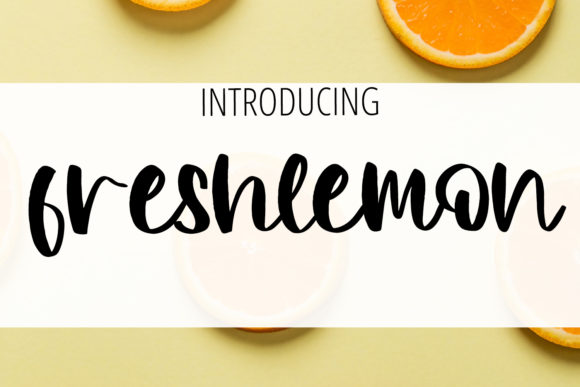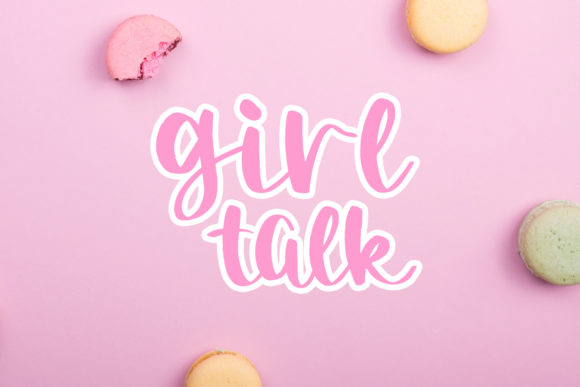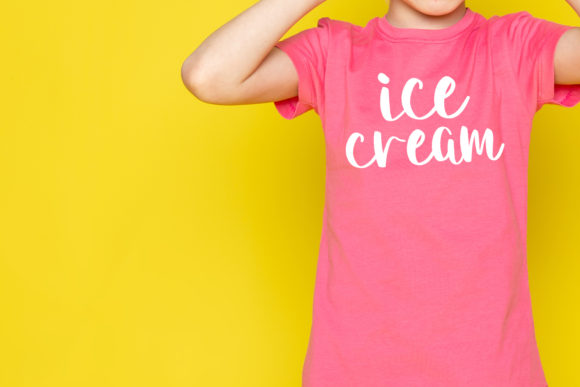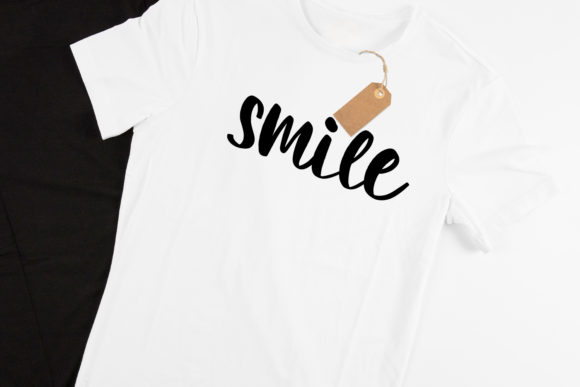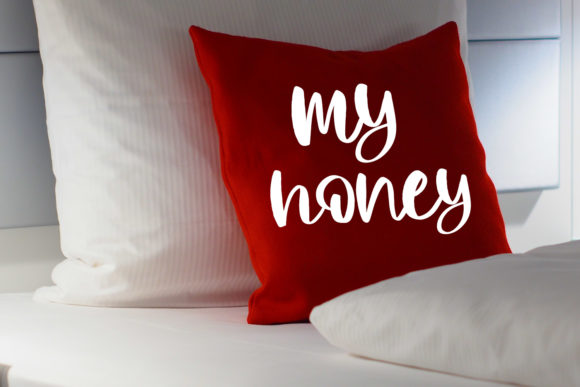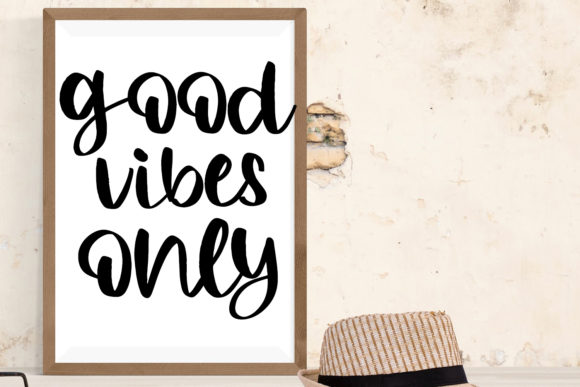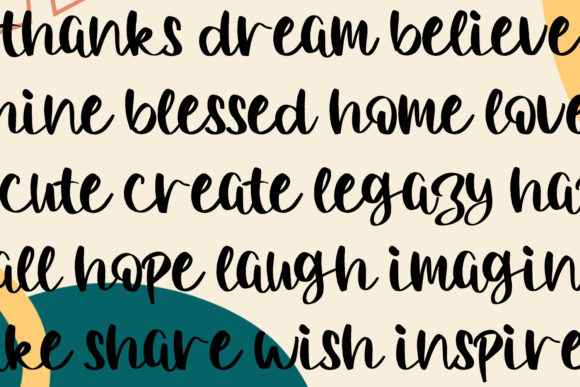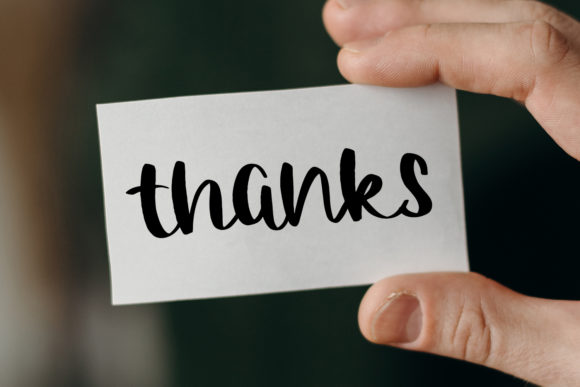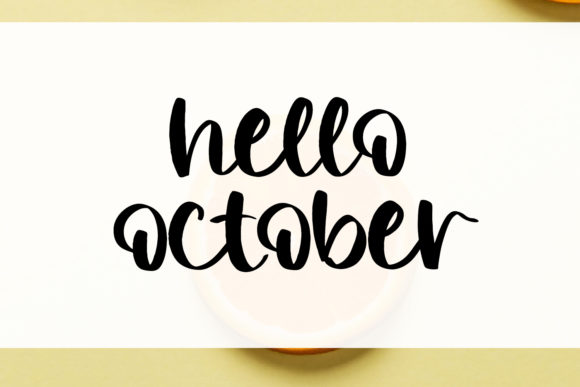
Freshlemon Font
About Freshlemon Font
Freshlemon is a delicate and elegant handwritten font. Its distinct and well rounded letters make this font a masterpiece. Fall in love with its incredibly versatile style and use it to create spectacular designs!